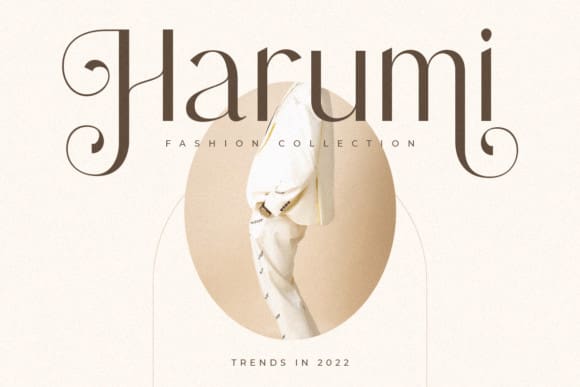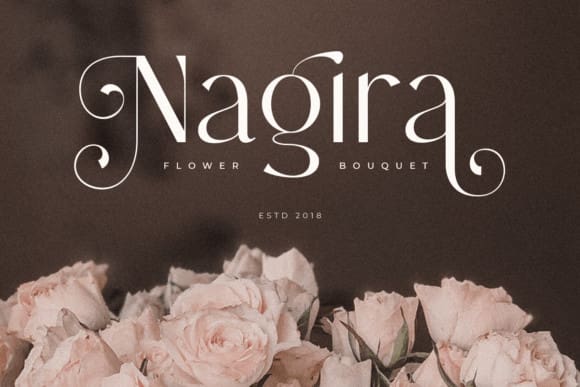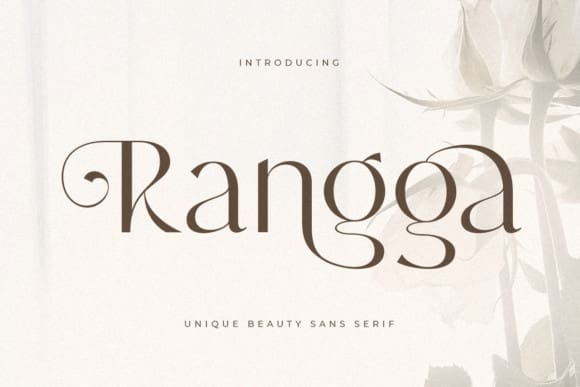
Rangga Font
Rangga Font a Sans serif that we created special for elegant branding needs, with extra ligatures in unique shape will be ready to add value of your brand. It so nice to leverage designer or product owner that need solutions to make their design look more classy and modern. And specially for this font, We prepared any ligatures characters to help you create unlimited variations for your creative needs.